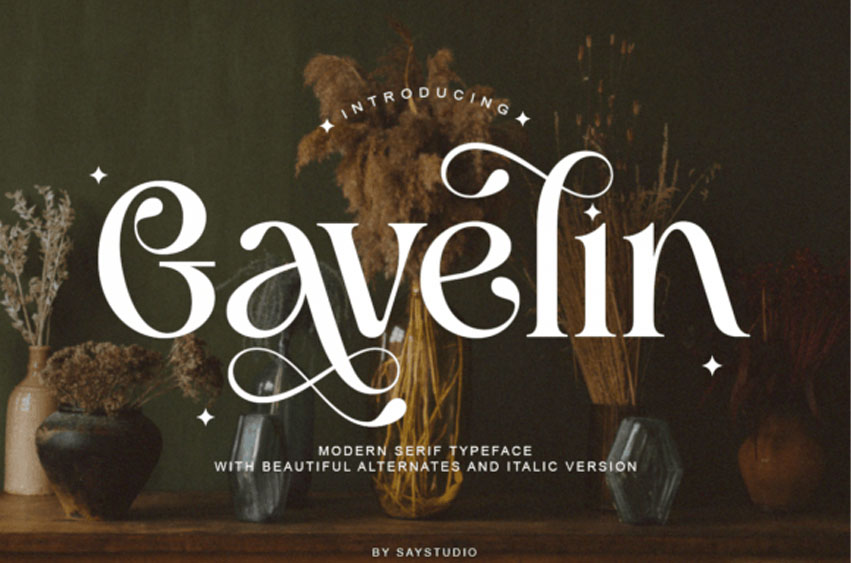
Gavelin Font is a modern serif font with a luxury style. It’s serif in many special characters and italic versions. Gavelin is the perfect multipurpose font for any project, with high-contrast glyphs, giving it a feminine and masculine quality. It is modern and easy to read.
Great in layout design for quotes or body copy, it is best used as a display for headings, logos, branding, magazines, product packaging, invitations, and more. This font is easy to use and has OpenType features.